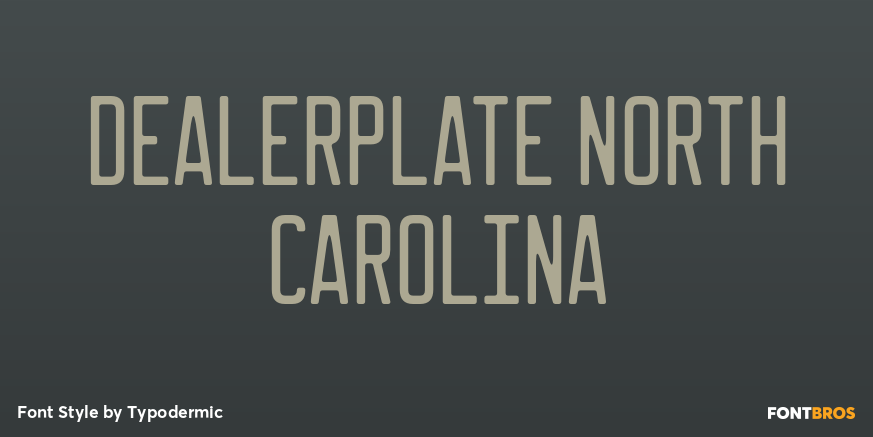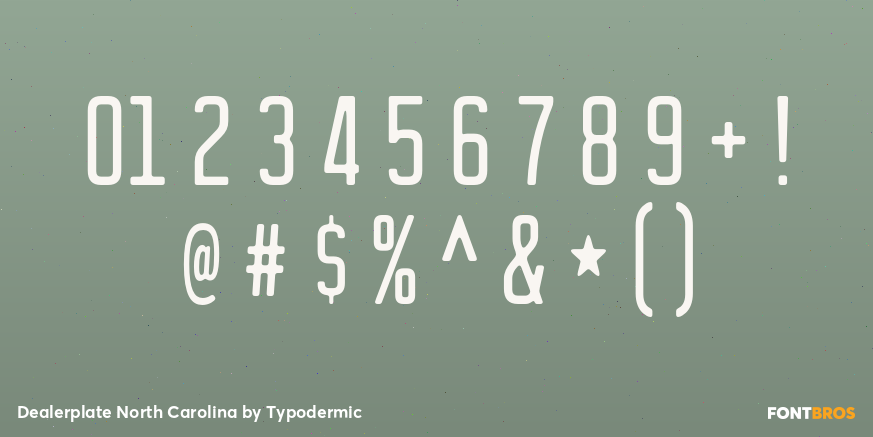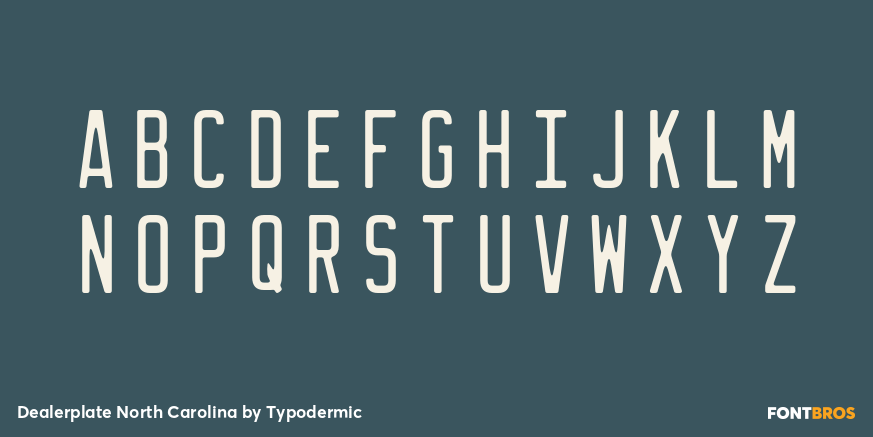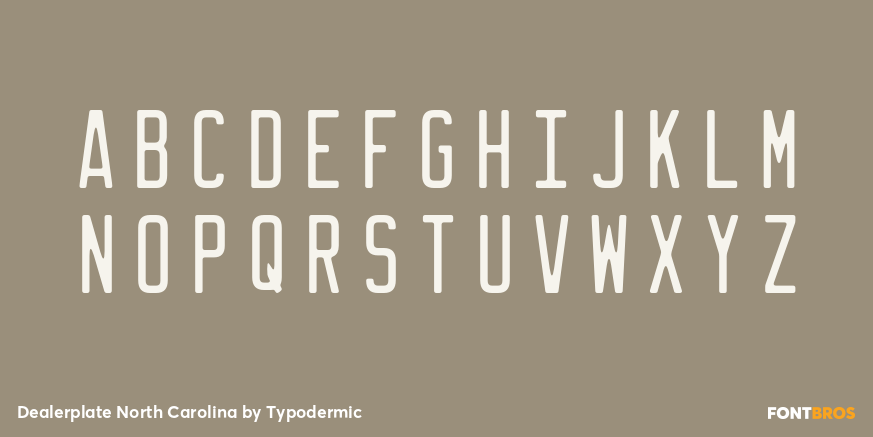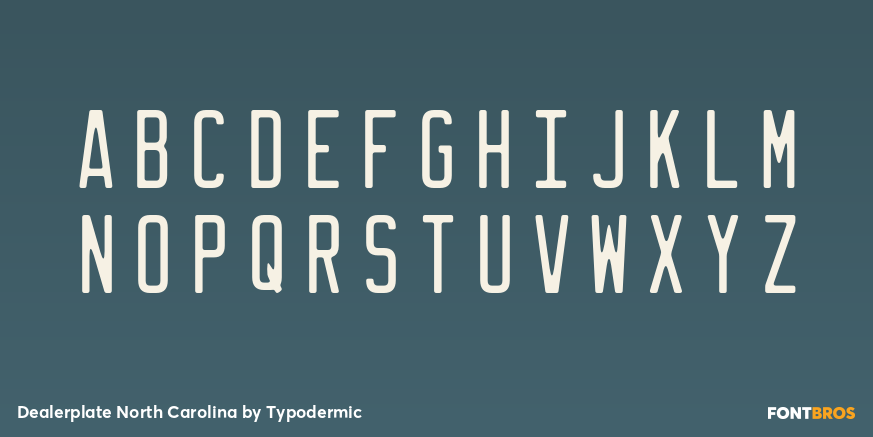
Dealerplate North Carolina
Buy NowDealerplate North Carolina expands North Carolina-inspired plate lettering into a complete alphabet for props and virtual vehicles. It fills in the characters that a short real-world plate cannot provide, allowing fictional registrations and matching graphics to retain a clear North Carolina association.
Use it for Southeastern road stories, coastal or mountain settings, police-procedural props, racing and open-world games, virtual-production traffic, evidence boards, impound records, parking permits, and dealership material. It is useful when a hero plate must connect with a vehicle menu, registration document, garage sign, or case-file caption while keeping the fictional world grounded in North Carolina.